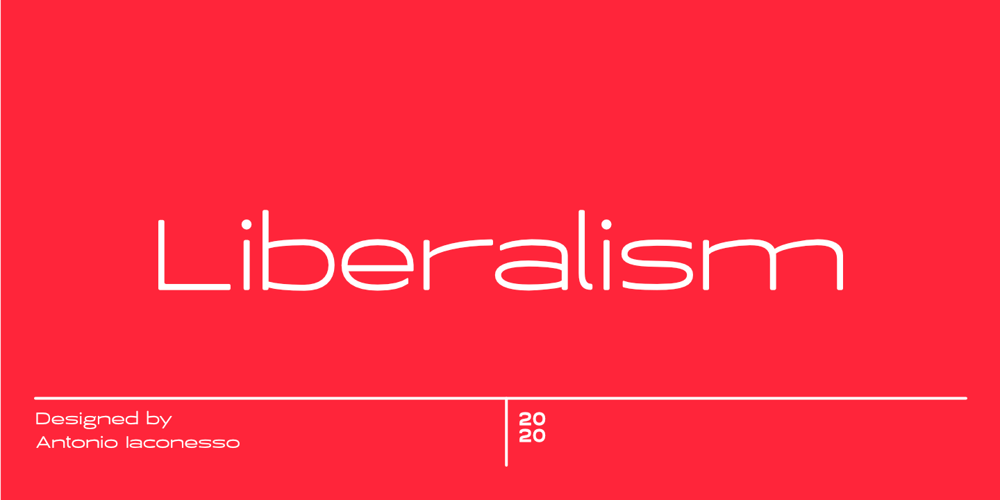
Fullfox Liberalism Font Family was designed by Antonio Iaconesso and published by Antonio Iaconesso. Fullfox Liberalism contains 5 styles and family package options. Liberalism is a sans-serif, grotesque and hybrid typeface that I created during the lockdown. Born as a pure design exercise, it has turned into something more.